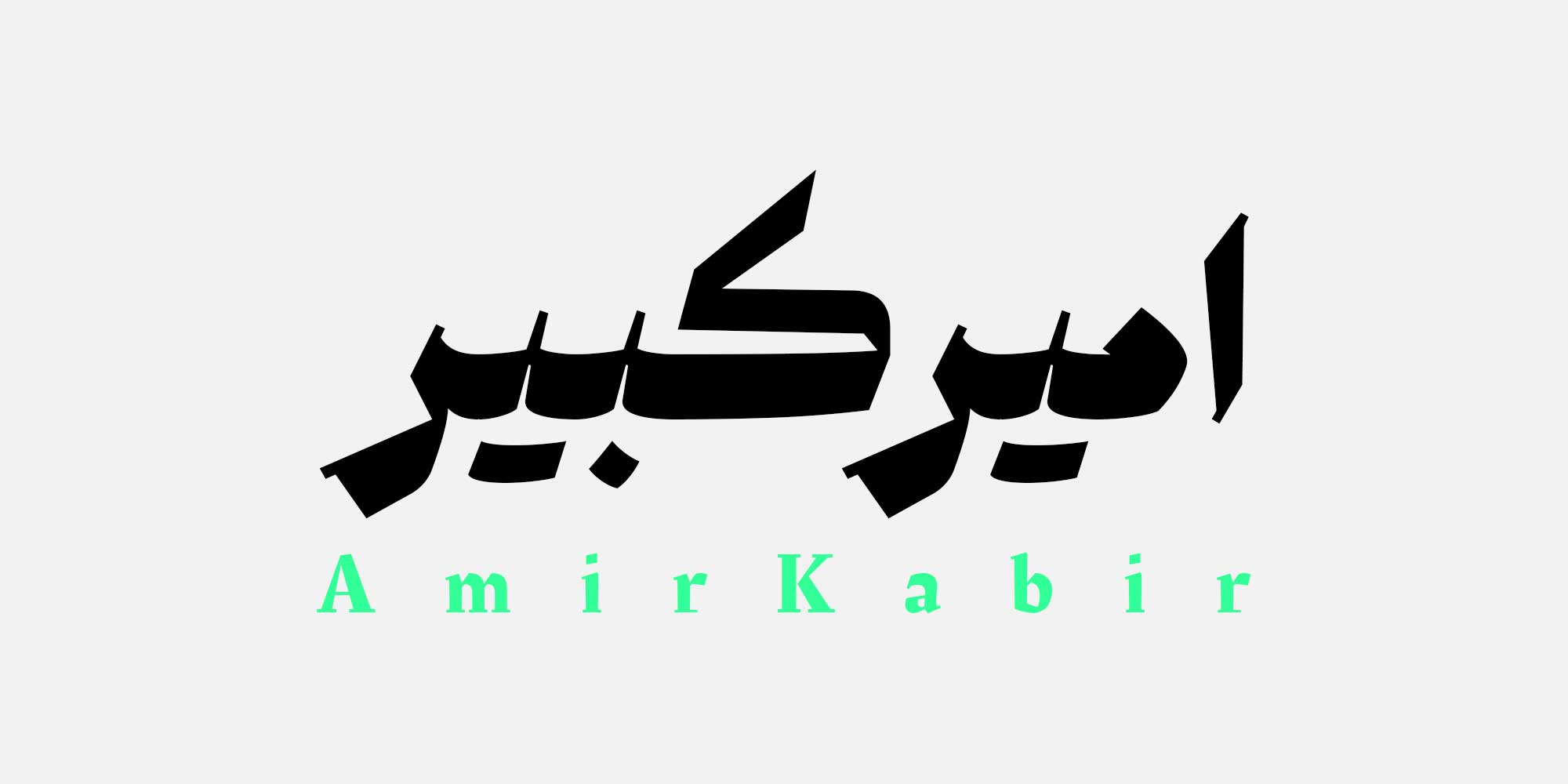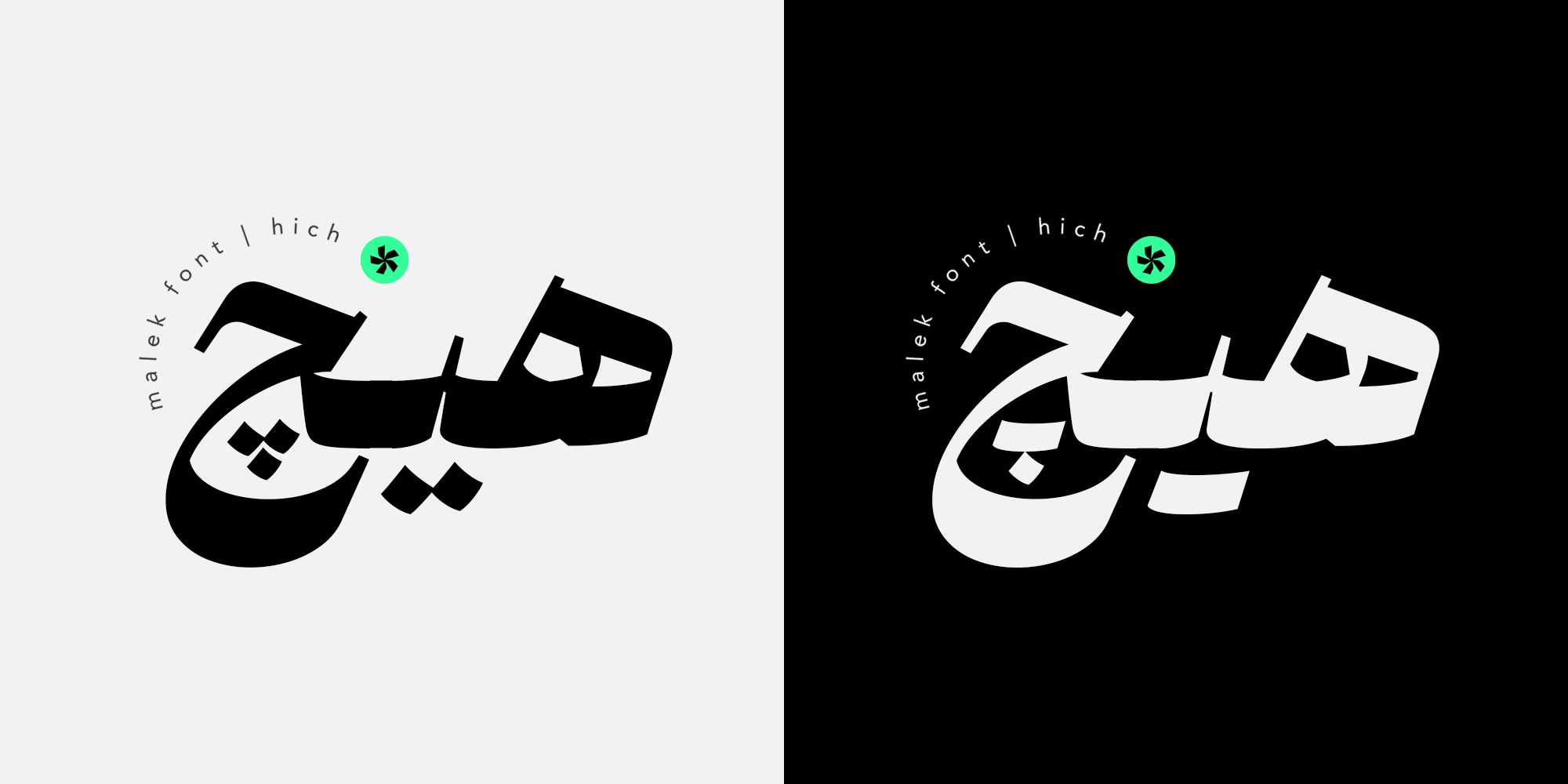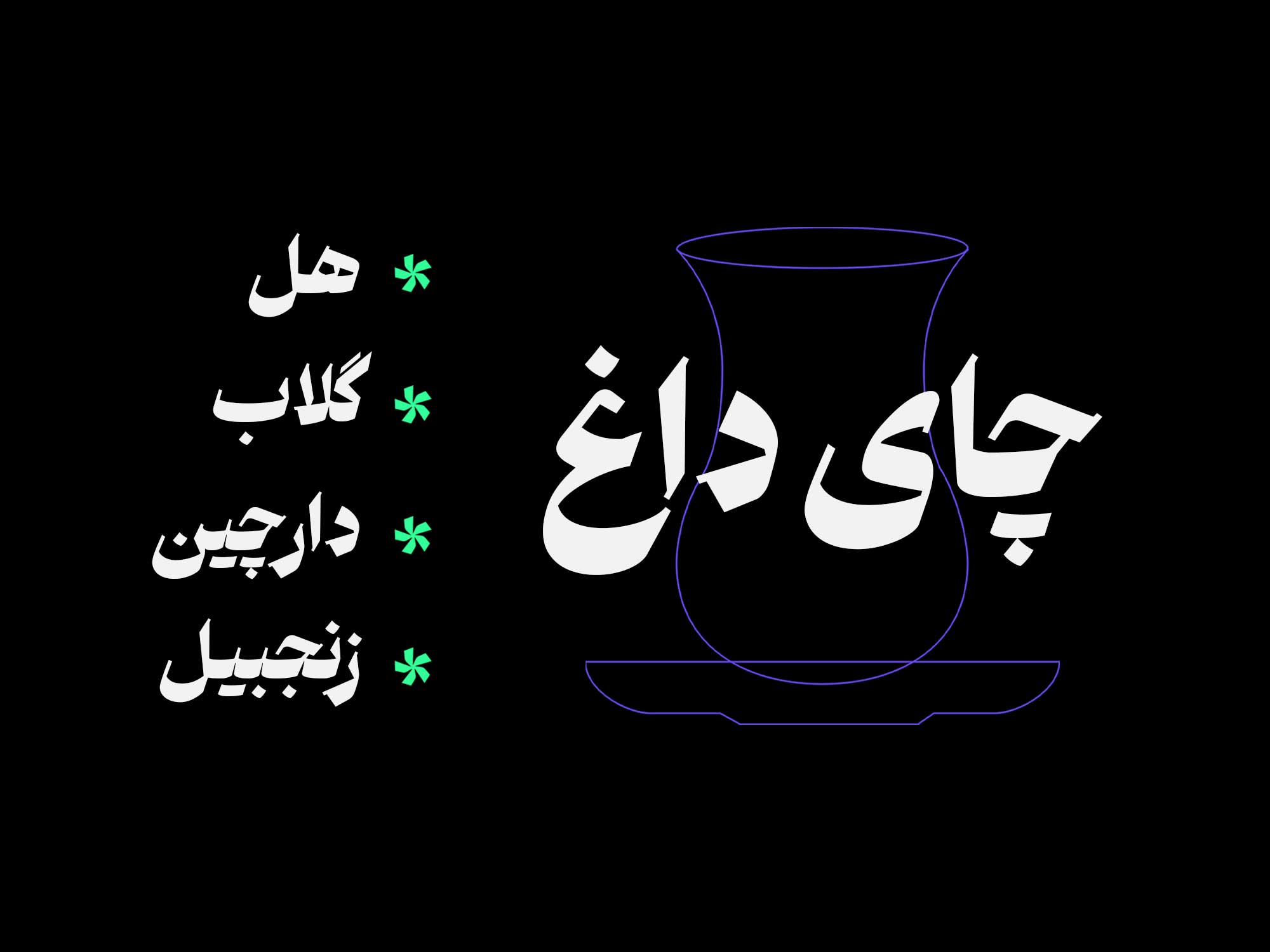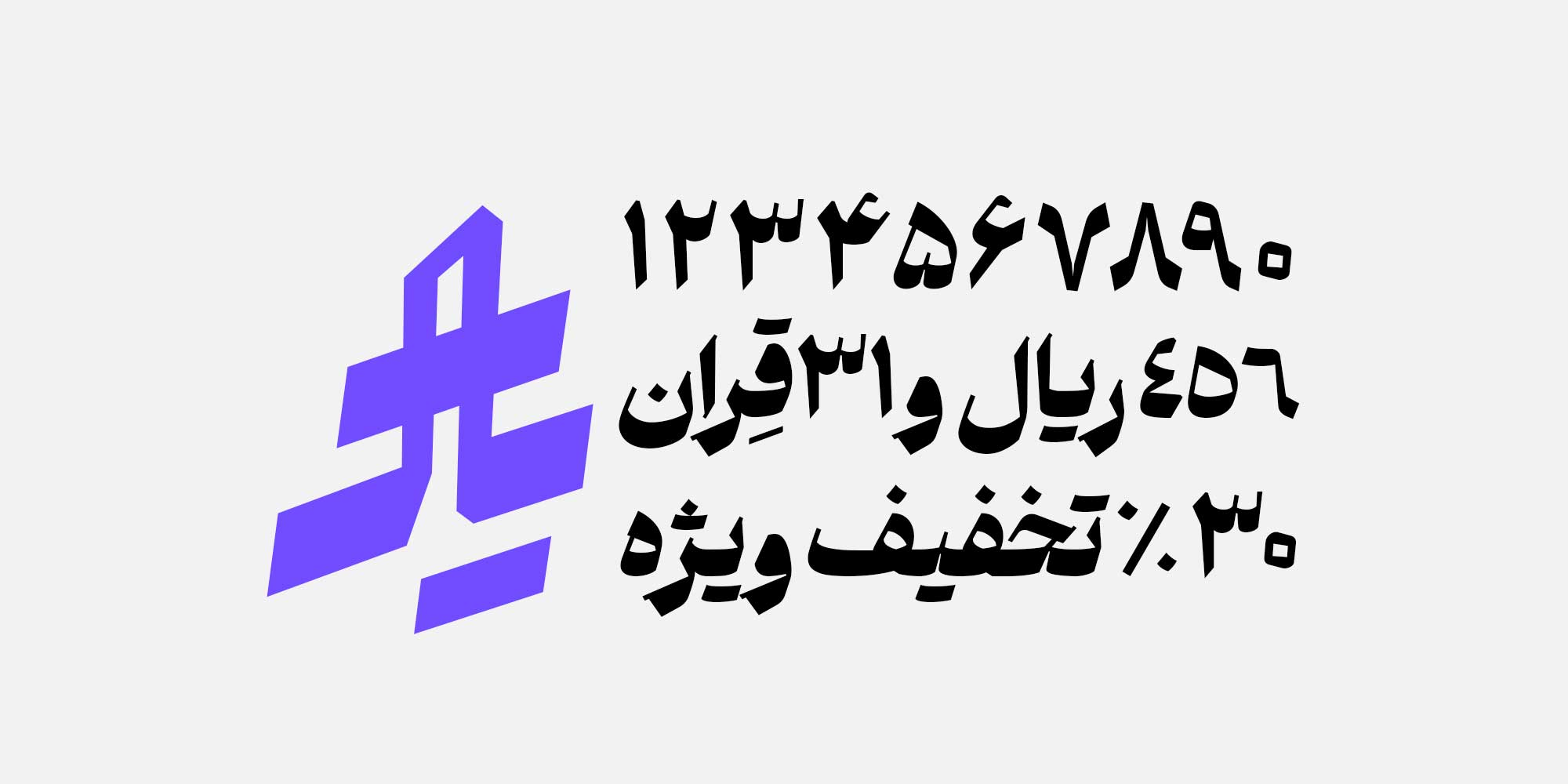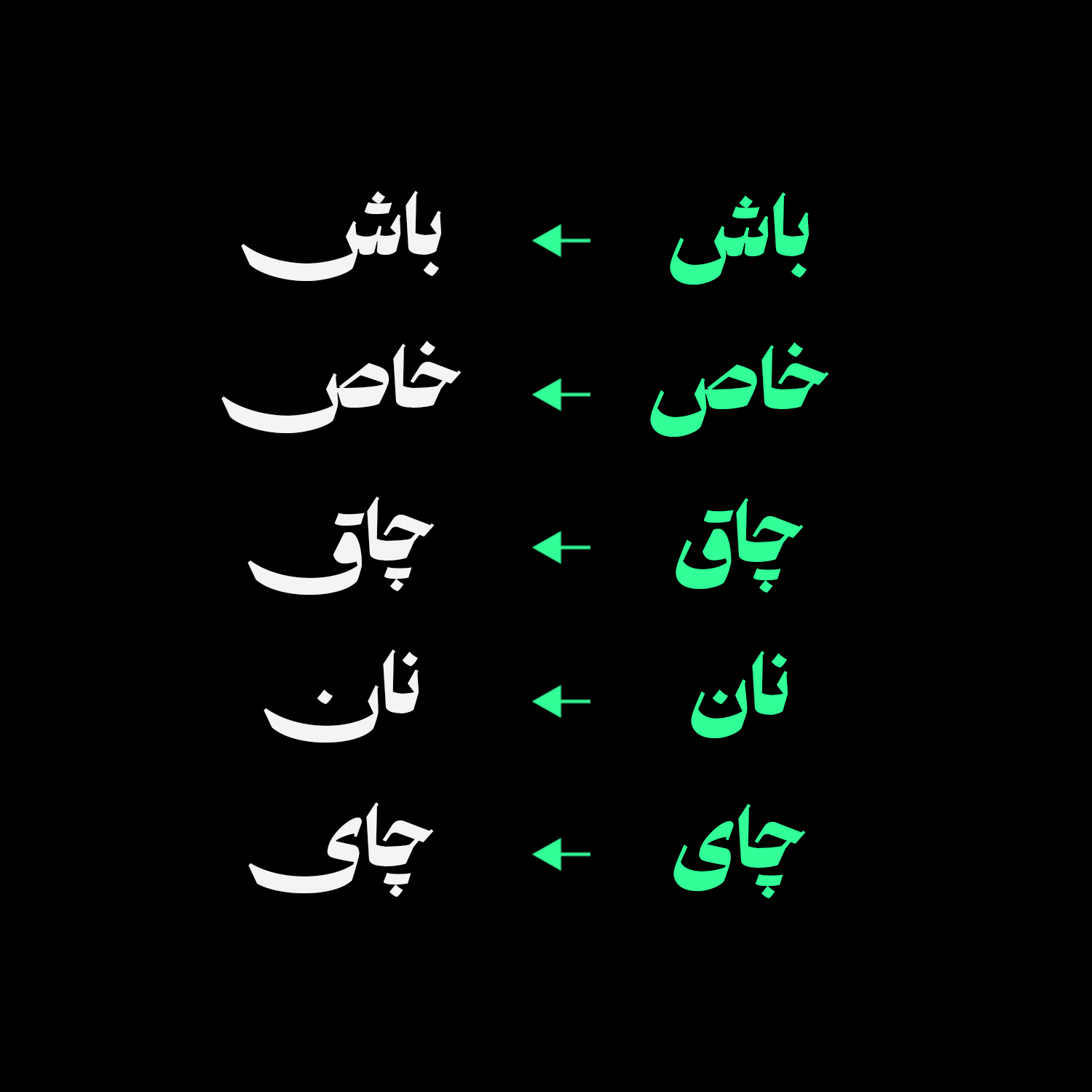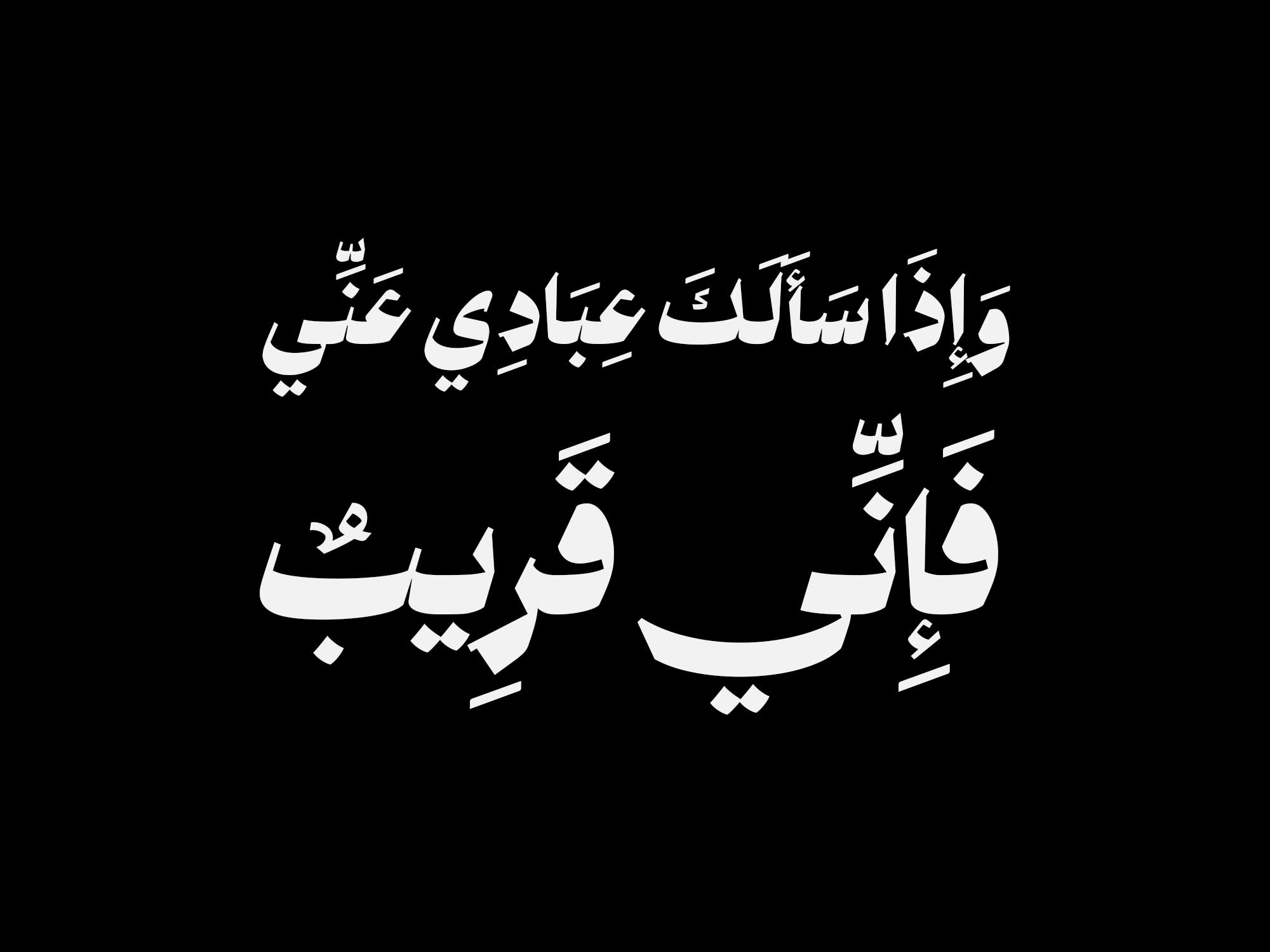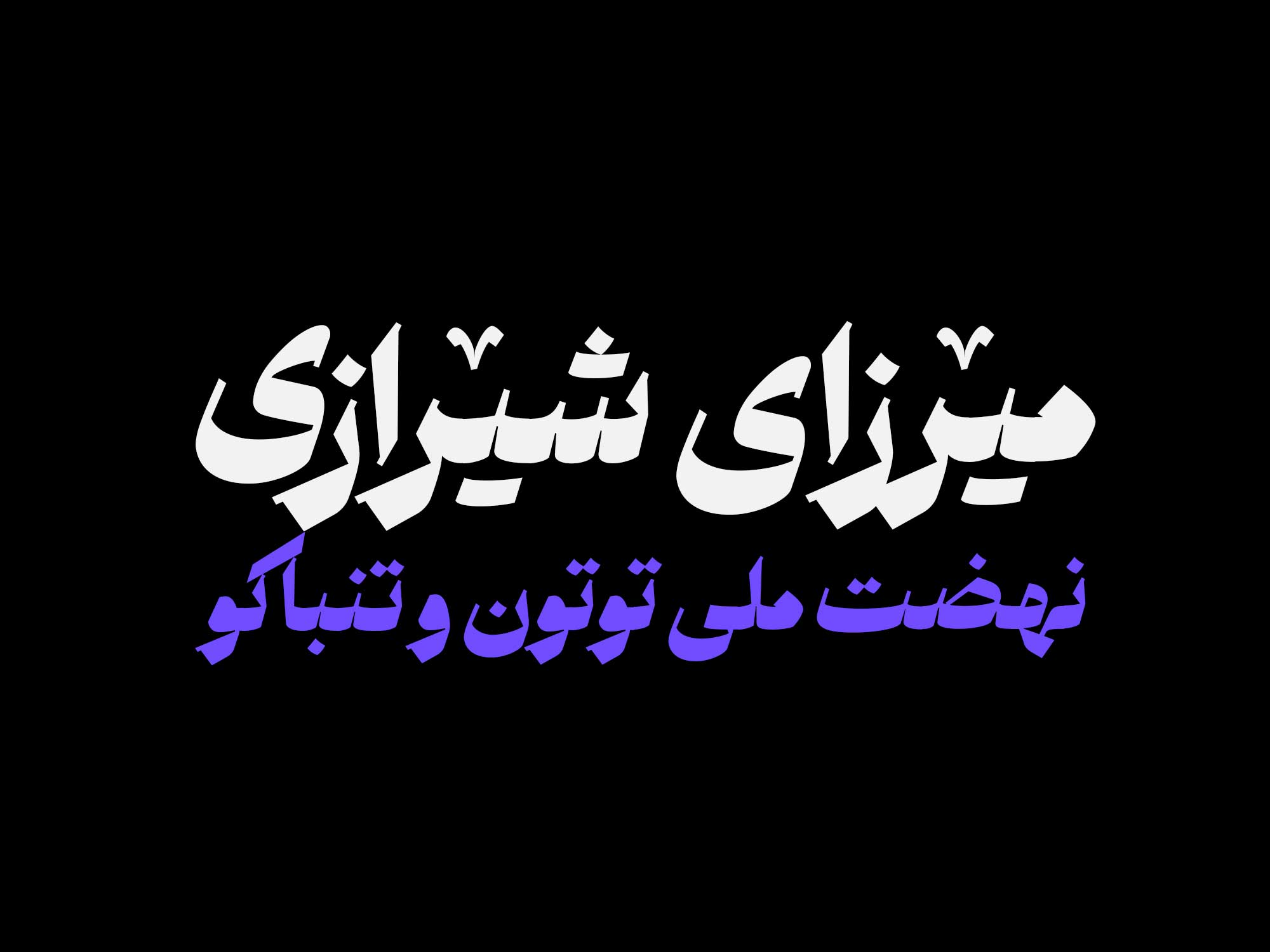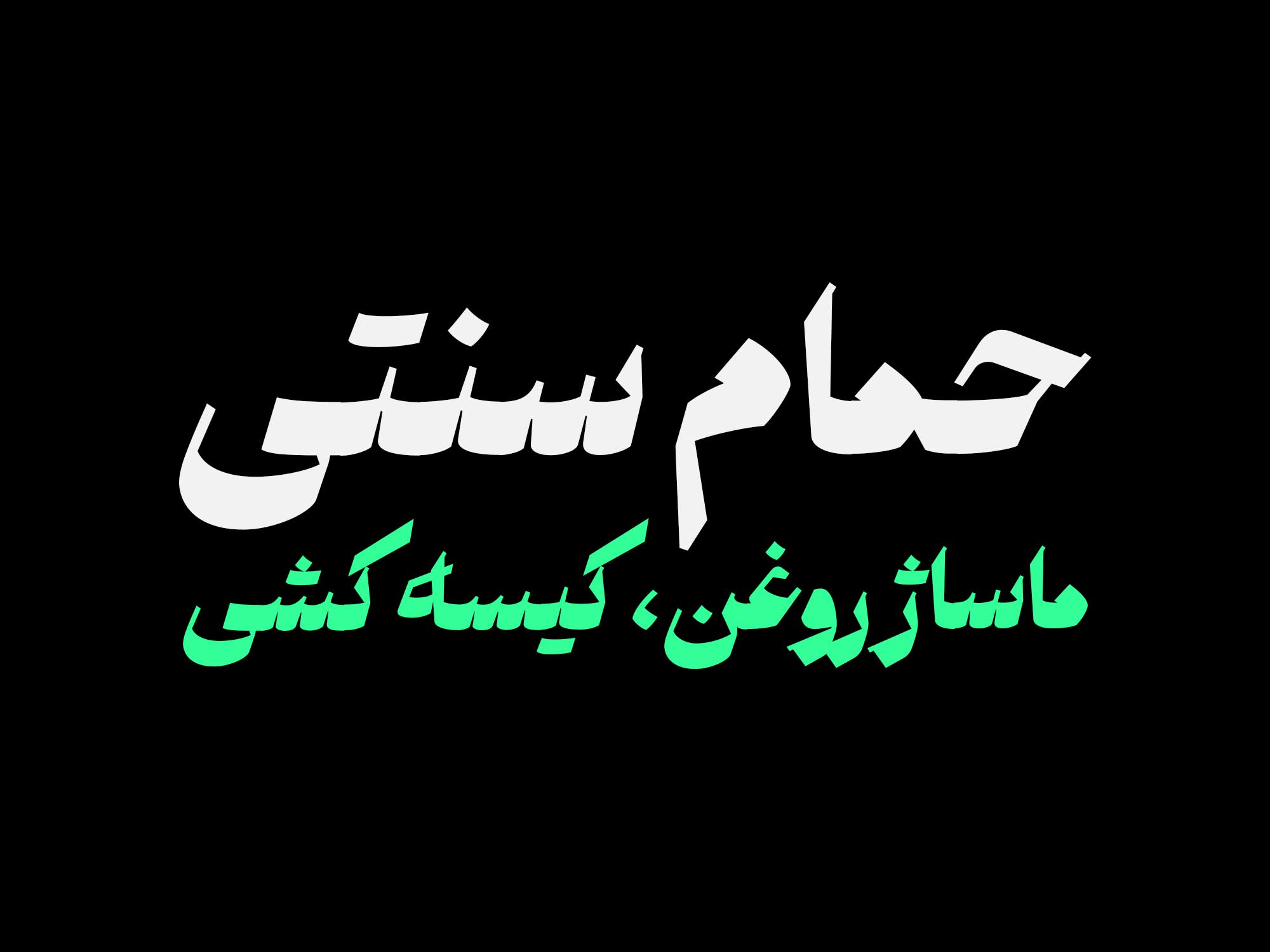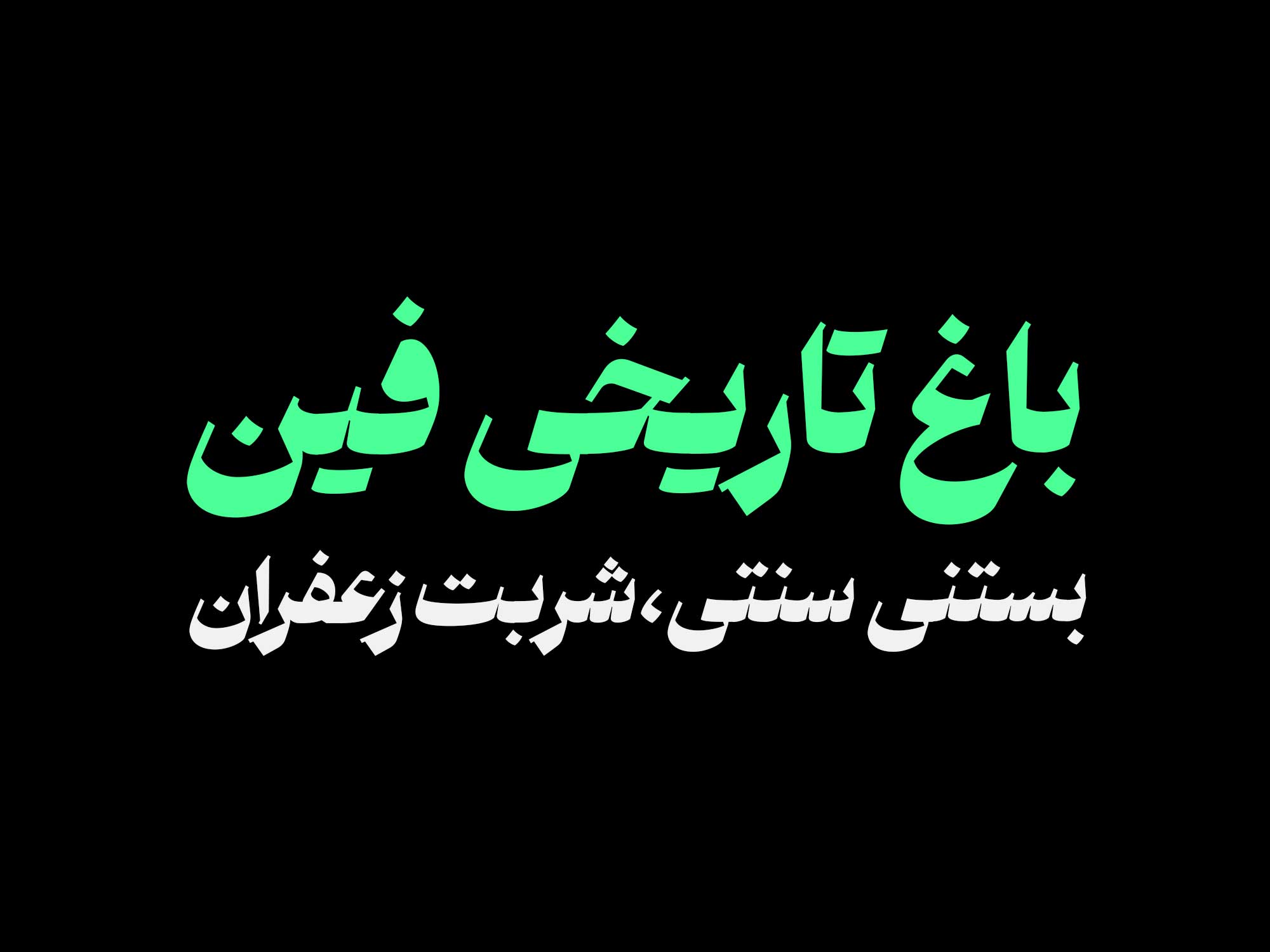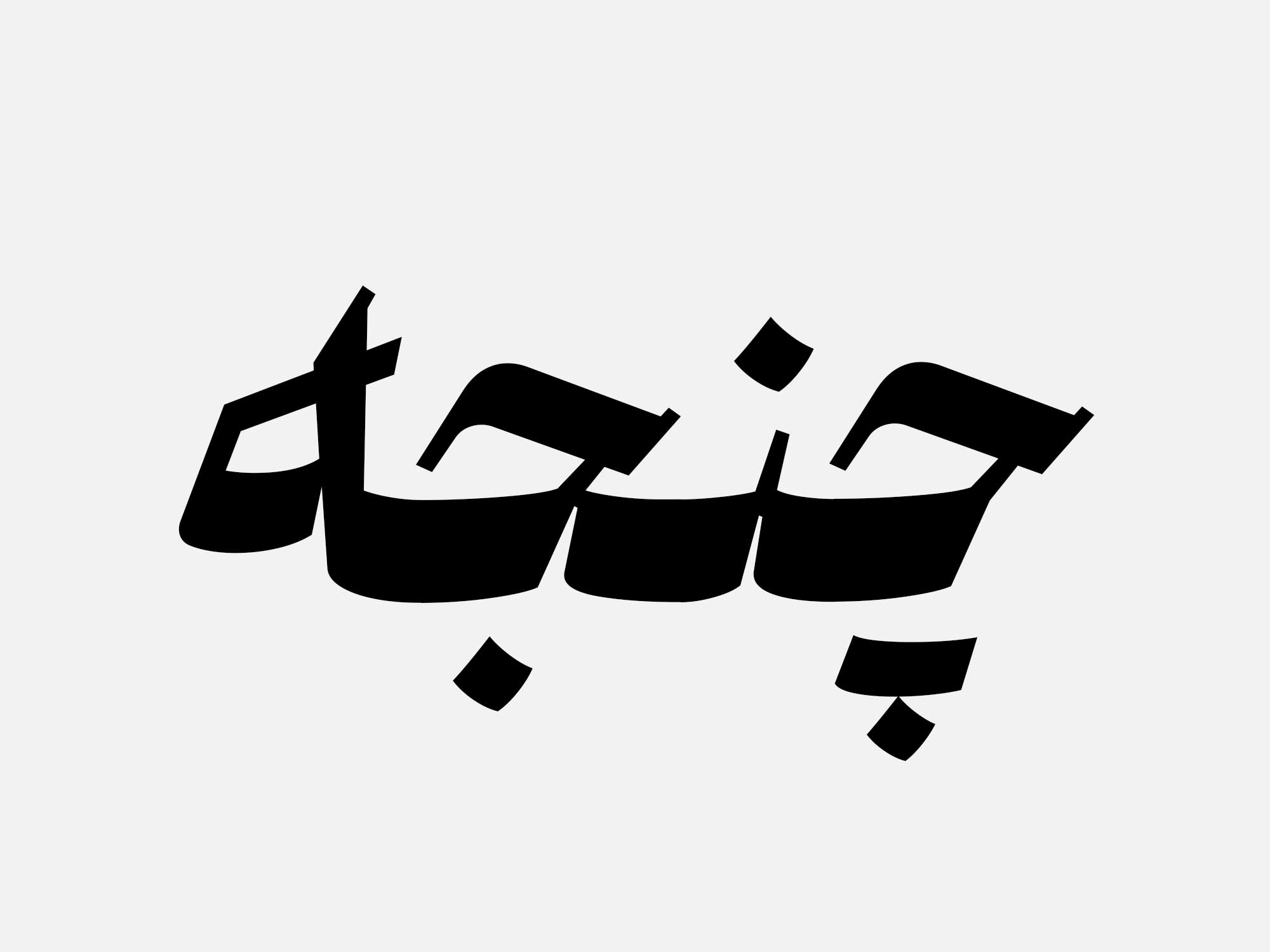
Malek
The Malek typeface was designed with the goal of bridging the authenticity of traditional Iranian calligraphy and the needs of contemporary graphic design.
The concept and design process of this typeface were developed and completed during the Type Therapy course by Master Moslem Ebrahimi.
Malek’s structure blends the geometric discipline of Naskh with the grace and fluidity of Nastaliq, creating a deliberate balance between tradition and modernity. The interplay of curved forms and angular breaks gives the typeface an authentic, dynamic, and contemporary character.
Malek is an ideal choice for titles, poster headlines, book covers, and visual identity projects with a distinctly traditional spirit. Despite its simplicity, it reflects the grandeur and elegance of Persian calligraphy in a modern form—an effort to revive timeless beauty within today’s visual language.
Seyed Mahdi Seyedinia, born in 2002 in Kashan, is an active and experimental designer in the field of type design (logotype, typography, and typeface design).